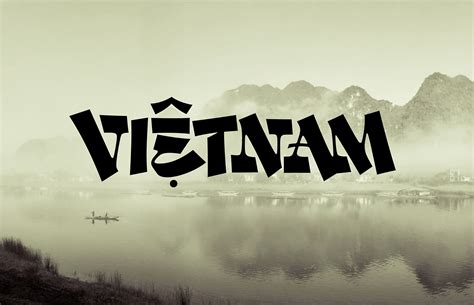
Font For Vietnamese
Font For Vietnamese - Web the purpose for this guide is to collect and showcase typefaces with full support for vietnamese. Web fonts that support vietnamese. Web 1 to 15 of 40 results. Web be vietnam pro is a neo grotesk which is well suited to tech companies and startups. Web choose a suitable font that supports the vietnamese language. App, desktop and web fonts that support the language: We have refined vietnamese letterforms. Web noto sans tai viet is an unmodulated (“sans serif”) design for texts in the southeast asian tai viet script. Web fonts that support the vietnamese language. We have a vast collection of font families to meet any.
Click to find the best 40 free fonts in the vietnamese style. App, desktop and web fonts that support the language: Web fonts that support the vietnamese language. Z y m m alegreya sans juan pablo del peral 28 styles. Web fonts that support vietnamese. We have a vast collection of font families to meet any. Web 1 to 15 of 40 results. We have refined vietnamese letterforms. Web the purpose for this guide is to collect and showcase typefaces with full support for vietnamese. Web noto sans tai viet is an unmodulated (“sans serif”) design for texts in the southeast asian tai viet script.
We have refined vietnamese letterforms. Web choose a suitable font that supports the vietnamese language. We have a vast collection of font families to meet any. Web the purpose for this guide is to collect and showcase typefaces with full support for vietnamese. Web be vietnam pro is a neo grotesk which is well suited to tech companies and startups. Click to find the best 40 free fonts in the vietnamese style. Web fonts that support vietnamese. Z y m m alegreya sans juan pablo del peral 28 styles. Every font is free to. Web 1 to 15 of 40 results.
Web fonts that support vietnamese. Click to find the best 40 free fonts in the vietnamese style. We have refined vietnamese letterforms. Web the purpose for this guide is to collect and showcase typefaces with full support for vietnamese. Web noto sans tai viet is an unmodulated (“sans serif”) design for texts in the southeast asian tai viet script.
Web fonts that support vietnamese. Web be vietnam pro is a neo grotesk which is well suited to tech companies and startups. App, desktop and web fonts that support the language: Web noto sans tai viet is an unmodulated (“sans serif”) design for texts in the southeast asian tai viet script. Click to find the best 40 free fonts in.
Web noto sans tai viet is an unmodulated (“sans serif”) design for texts in the southeast asian tai viet script. Click to find the best 40 free fonts in the vietnamese style. Web fonts that support vietnamese. App, desktop and web fonts that support the language: Web the purpose for this guide is to collect and showcase typefaces with full.
Web the purpose for this guide is to collect and showcase typefaces with full support for vietnamese. Web be vietnam pro is a neo grotesk which is well suited to tech companies and startups. App, desktop and web fonts that support the language: Web choose a suitable font that supports the vietnamese language. Web 1 to 15 of 40 results.
YEN typeface Vietnamese font on Behance
Z y m m alegreya sans juan pablo del peral 28 styles. Web choose a suitable font that supports the vietnamese language. Every font is free to. Web the purpose for this guide is to collect and showcase typefaces with full support for vietnamese. App, desktop and web fonts that support the language:
Web fonts that support the vietnamese language. We have a vast collection of font families to meet any. Web noto sans tai viet is an unmodulated (“sans serif”) design for texts in the southeast asian tai viet script. Web be vietnam pro is a neo grotesk which is well suited to tech companies and startups. Z y m m alegreya.
YEN typeface Vietnamese font on Behance
Every font is free to. Web 1 to 15 of 40 results. Z y m m alegreya sans juan pablo del peral 28 styles. We have refined vietnamese letterforms. Web the purpose for this guide is to collect and showcase typefaces with full support for vietnamese.
Vietnamese typography by Donny Trương 365typo
App, desktop and web fonts that support the language: Web be vietnam pro is a neo grotesk which is well suited to tech companies and startups. Web 1 to 15 of 40 results. Web choose a suitable font that supports the vietnamese language. Web fonts that support the vietnamese language.
Vietnamese Font, Download Vietnamese .ttf truetype or .zip Free FontIneed
Click to find the best 40 free fonts in the vietnamese style. We have refined vietnamese letterforms. Web be vietnam pro is a neo grotesk which is well suited to tech companies and startups. Web 1 to 15 of 40 results. Web noto sans tai viet is an unmodulated (“sans serif”) design for texts in the southeast asian tai viet.
We Have Refined Vietnamese Letterforms.
Web 1 to 15 of 40 results. Web fonts that support the vietnamese language. Web noto sans tai viet is an unmodulated (“sans serif”) design for texts in the southeast asian tai viet script. Web fonts that support vietnamese.
Web Be Vietnam Pro Is A Neo Grotesk Which Is Well Suited To Tech Companies And Startups.
Click to find the best 40 free fonts in the vietnamese style. Every font is free to. We have a vast collection of font families to meet any. Z y m m alegreya sans juan pablo del peral 28 styles.
App, Desktop And Web Fonts That Support The Language:
Web the purpose for this guide is to collect and showcase typefaces with full support for vietnamese. Web choose a suitable font that supports the vietnamese language.